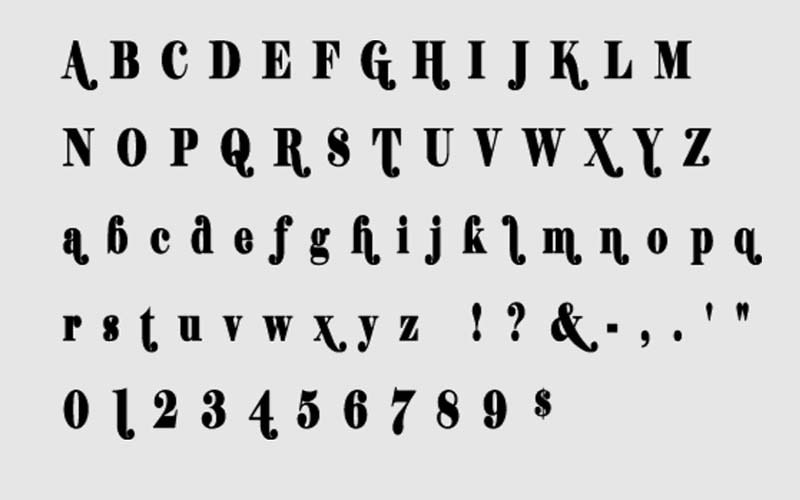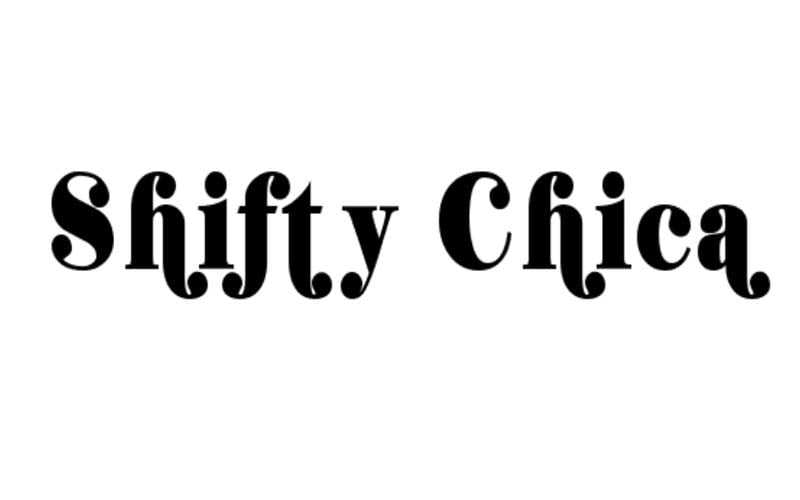
Shifty Chica Font is a fancy curly typeface with a stylish and elegant texture. Ray Larabie a Japanese font designer designed and released this font first time in 1998.
This fancy font family comes in only a single regular style that contains 108 characters including all-caps letters and numbers. It supports multiple international languages that make this font famous around the world.
He created this font with thick strokes and rounded corners to make it beautiful. Each letter is designed with slim and bold strokes. Those help to make it stylish and beautiful.
You can openly use this fine-quality font for various design operations. Like, posters, unique emblems, game graphics, printing on cards, t-shirt printing, product designs, product packaging, and so on.
Many new and experienced designers, want to make this elegant font a part of their daily routine. Due to the unique and stylish texture this amazing font can create a prominent and excellent design.